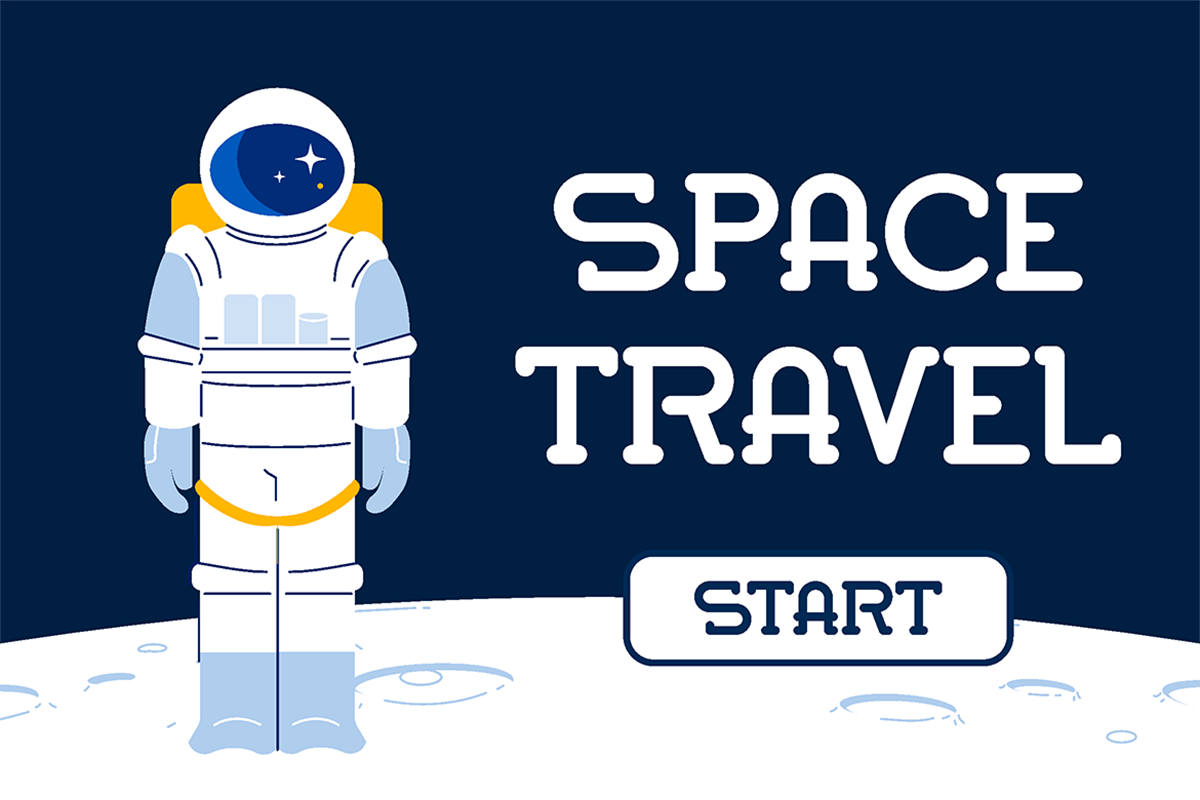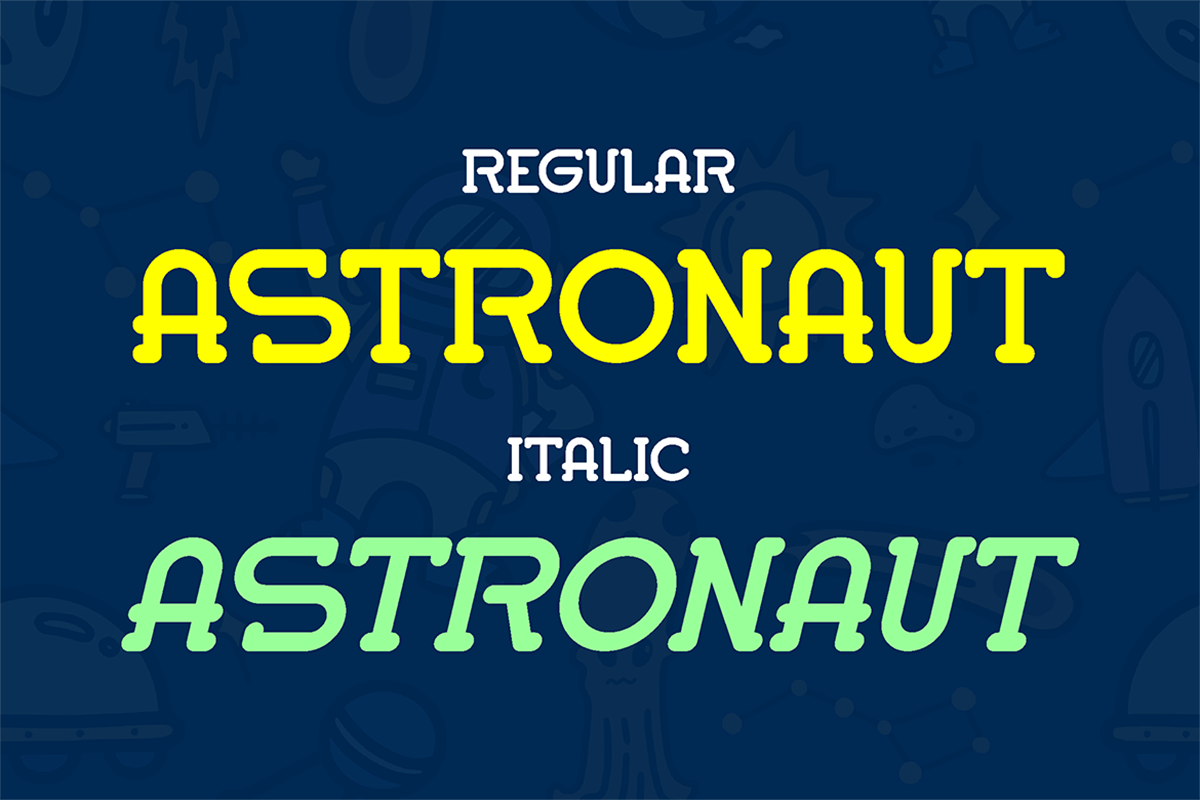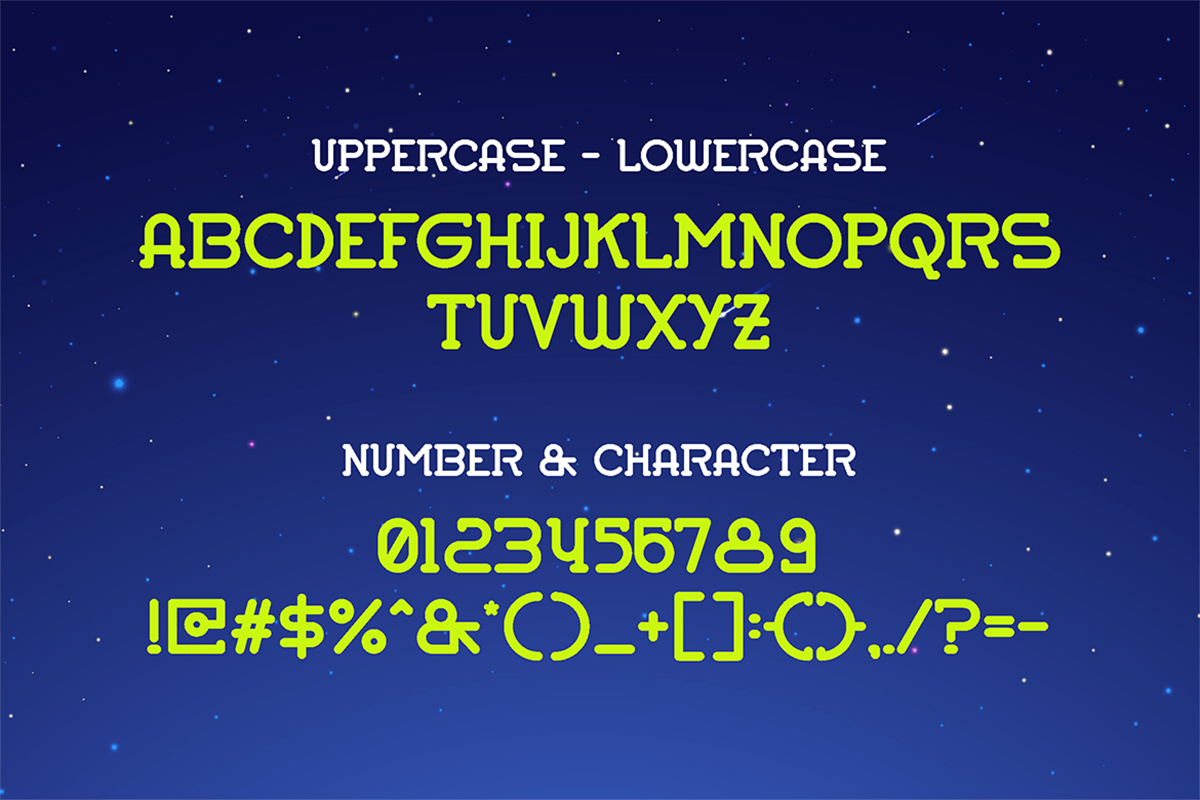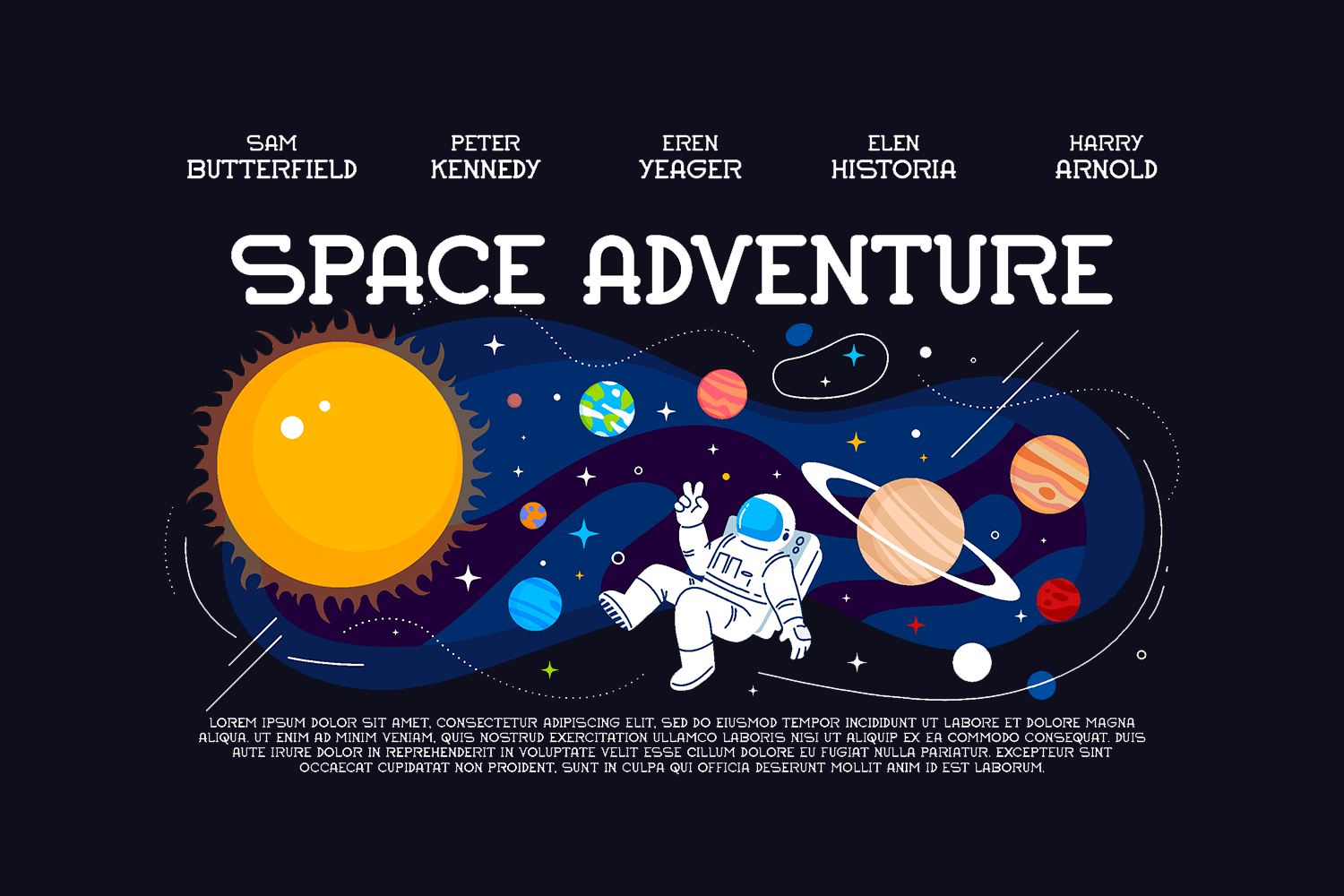
Cartos Free Font
Cartos Free Font taking your children’s audience fantasy to a whole new level. The round corner and geometric shape emphasize the space and technology feel while keeping it friendly and approachable without making the kids dizzy and overwhelmed. This free typeface was designed by a talented Tokokoo Studio. If you like it don’t forget to check out the full version.